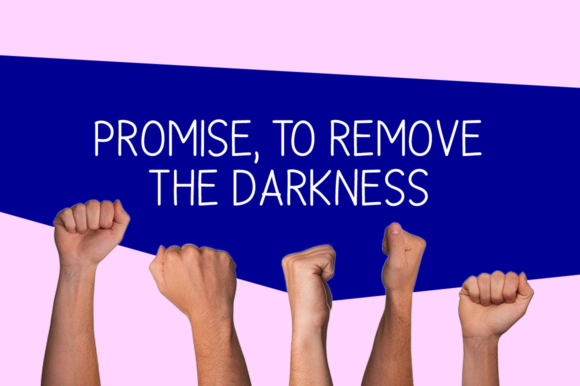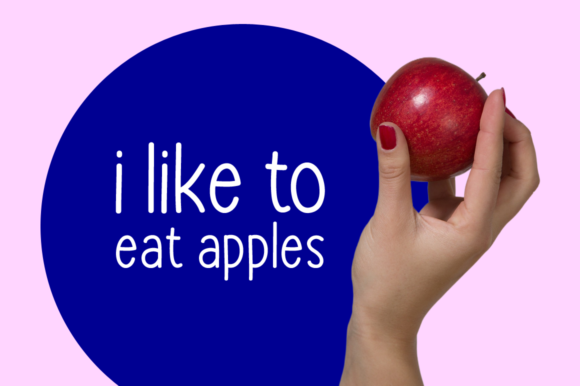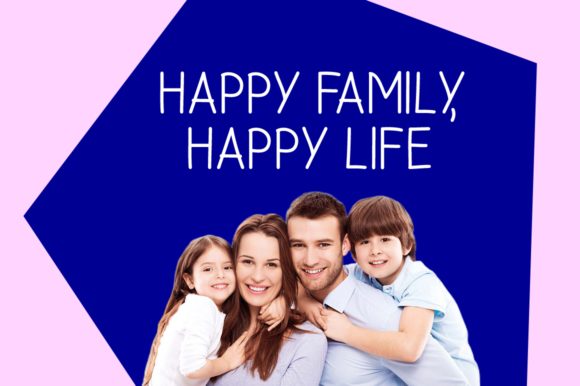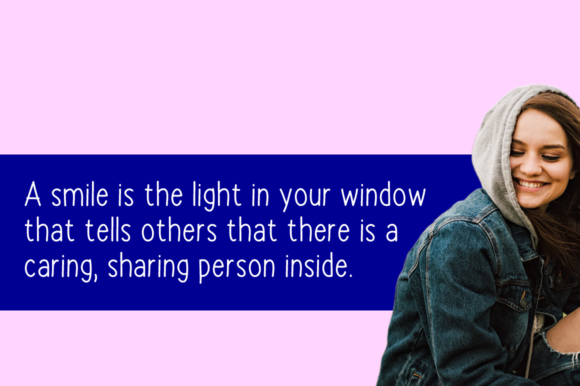
How Lovely Font
Introducing “How Lovely” – a captivating handwritten font that is destined to become a cherished addition to your design toolkit. With its unique charm and versatility, “How Lovely” is the perfect choice for a wide range of creative projects, making every piece you create truly shine.
Imagine the endless possibilities that “How Lovely” brings to the table. Whether you’re crafting elegant stationery that leaves a lasting impression, designing eye-catching logos that tell a story, or creating trendy t-shirt graphics that turn heads, this font effortlessly adapts to your vision. Its fluid strokes and distinct character give your designs a personalized touch that resonates with authenticity.
Enhance your paper creations with the soft elegance of “How Lovely.” Let its graceful curves grace your print designs, adding an extra layer of sophistication to every page. Picture it as the star of your website header, drawing visitors in with its inviting and charming aesthetic. Use it to frame your cherished photos, adding a touch of warmth and sentimentality to every image.
Whether you’re working on a vibrant flyer that demands attention, a captivating music cover that sets the mood, or a striking poster that leaves a lasting impression, “How Lovely” rises to the occasion. Its adaptability shines through, making it the perfect companion for any visual endeavor you embark upon.
Picture “How Lovely” gracing image sliders, seamlessly blending style and substance to create a captivating visual experience for your audience. Its versatility knows no bounds, allowing you to explore your creativity and create designs that are as unique as they are beautiful.
With “How Lovely,” you’re not just getting a font – you’re getting a tool that empowers you to bring your creative visions to life. It’s a font that whispers elegance and sophistication, while also exuding a sense of approachable charm. From stationery to logos, t-shirts to posters, and everything in between, “How Lovely” is here to elevate your designs and make them truly unforgettable. So go ahead, embrace the beauty of “How Lovely” and watch your creations come to life in ways you never thought possible.